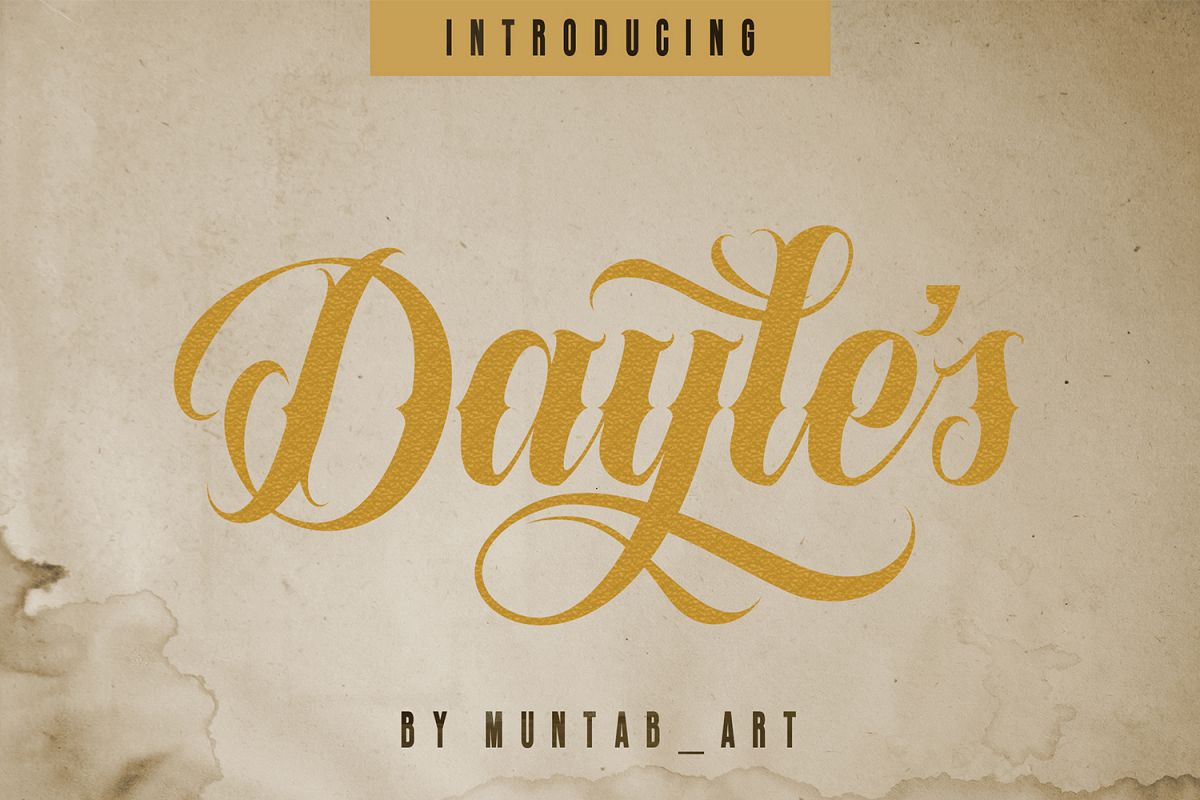
Dayles Script Fonts
Dayles Script Fonts includes uppercase and lowercase letters, numerals, a large range of punctuation and ligatures. All lowercase letters include ending swashes and alternative font.